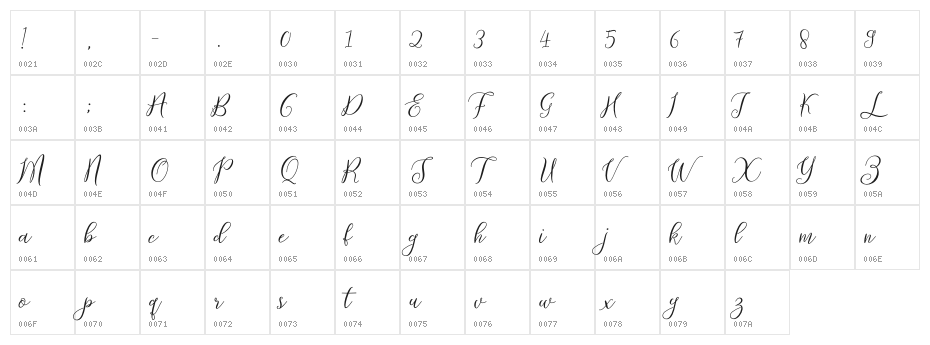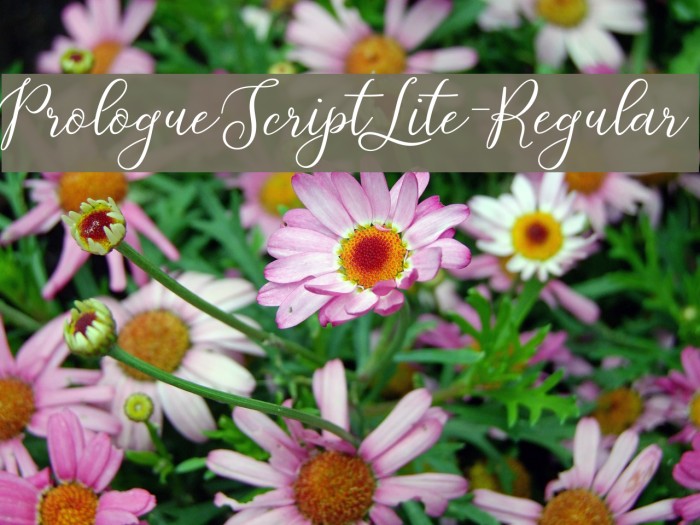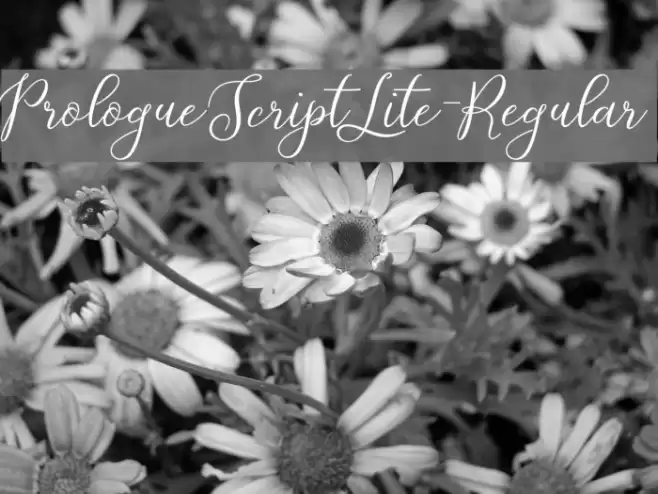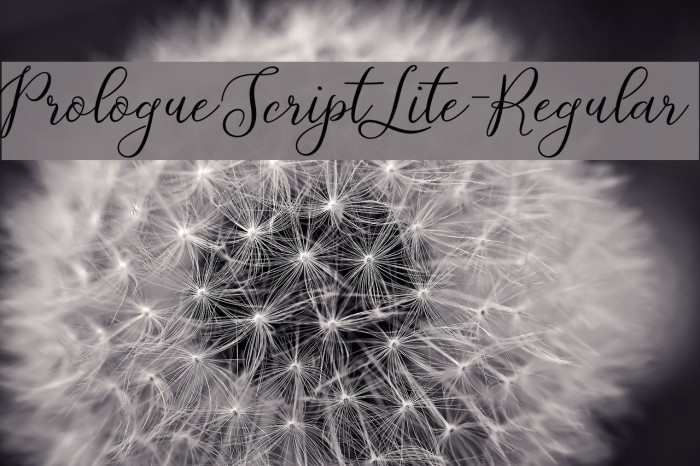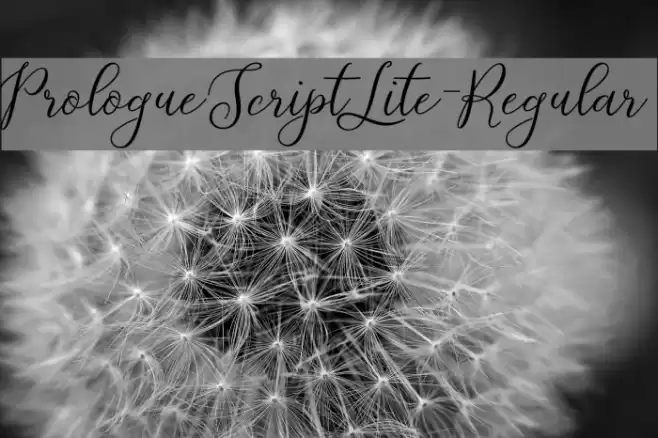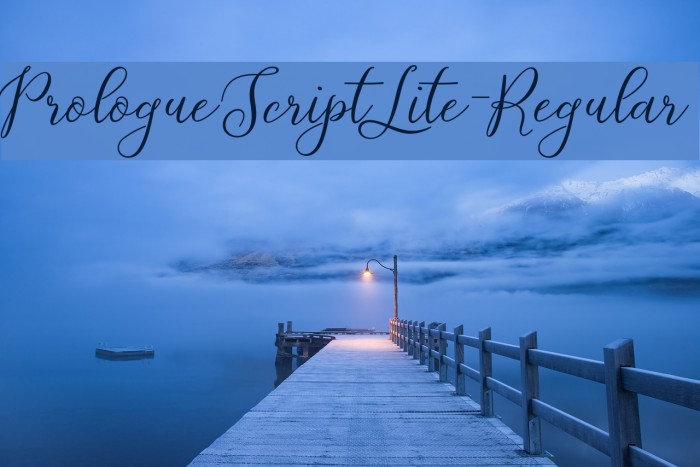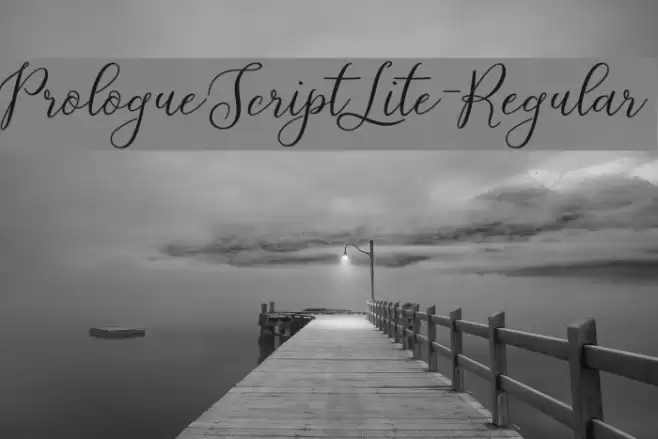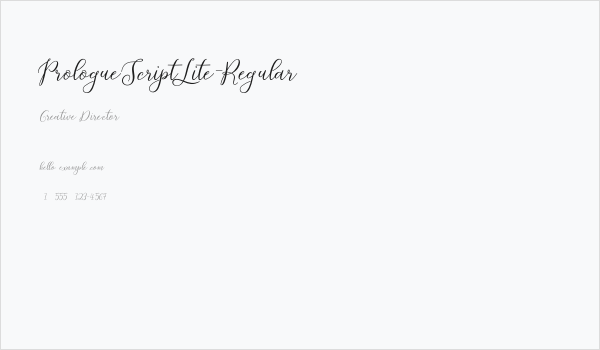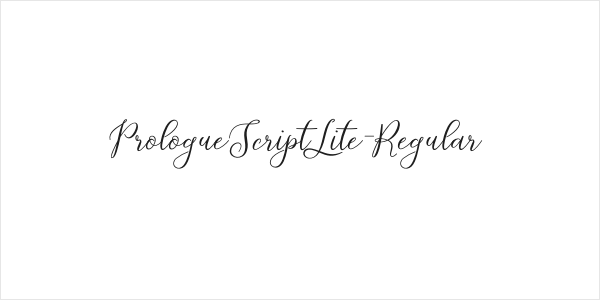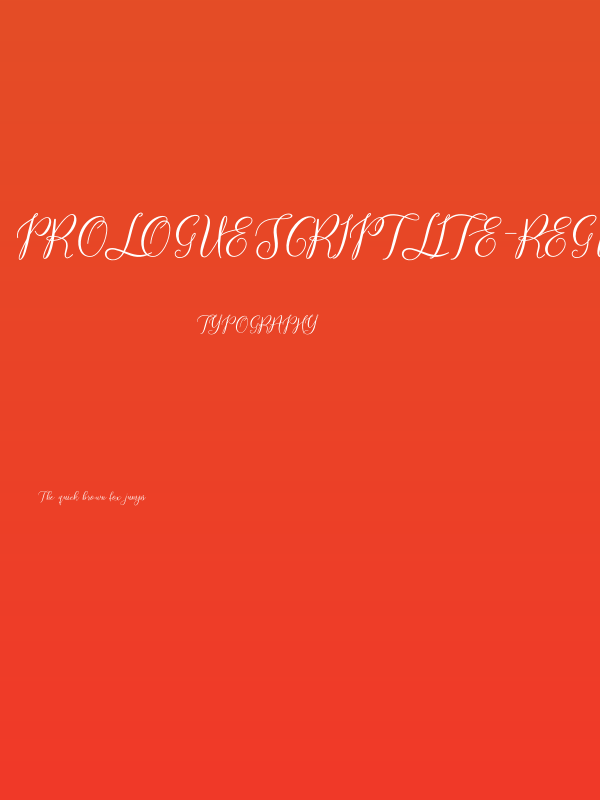
PrologueScriptLite-Regular Font
PrologueScriptLite-Regular Description
This elegant script font features flowing, interconnected letters that mimic the fluidity of cursive handwriting. The uppercase letters are ornate and decorative, with intricate loops and swirls that add a touch of sophistication. The lowercase letters maintain a consistent style, with smooth curves and a graceful appearance. The numerals are designed to complement the overall aesthetic, maintaining the same elegant flow. This font is ideal for projects that require a personal, handwritten touch, such as invitations, greeting cards, or branding materials. Its artistic flair makes it stand out while remaining legible.
| Use Case | Headlines, Invitations, Branding |
| Proposed Projects | Ideal for wedding invitations, greeting cards, branding, and other projects requiring a personal touch. |